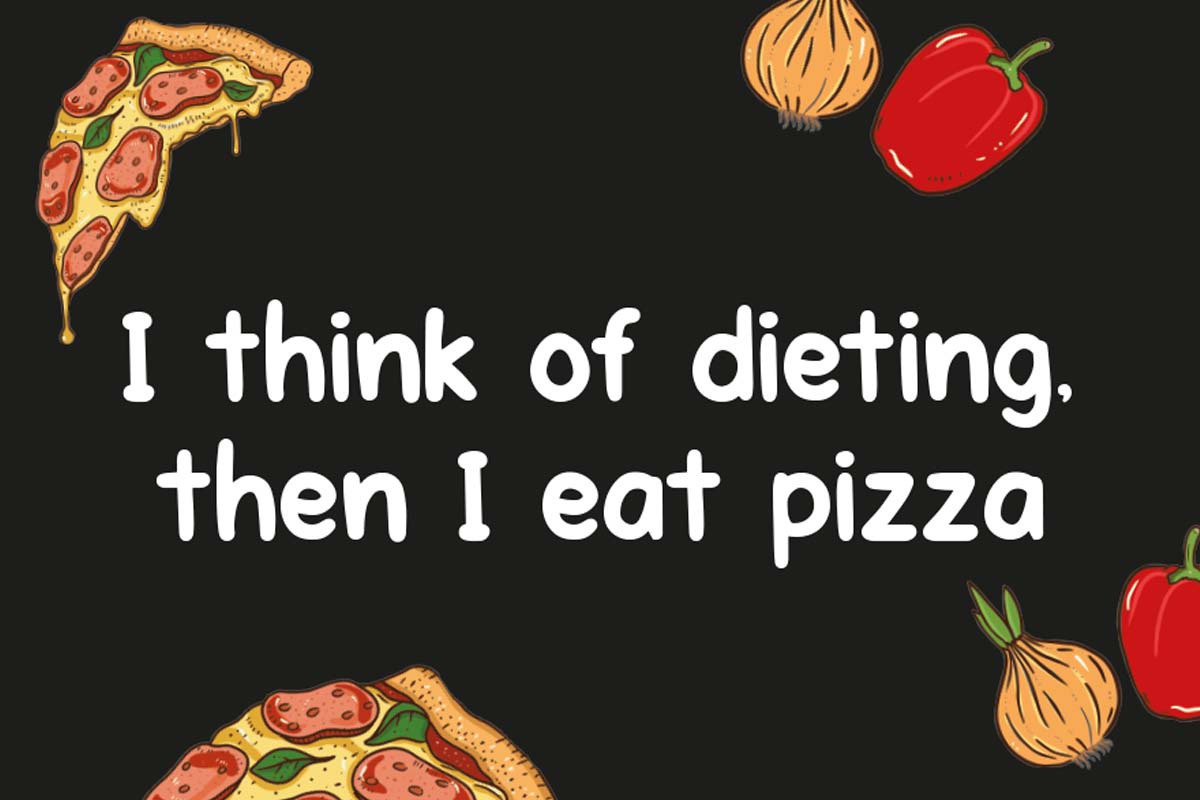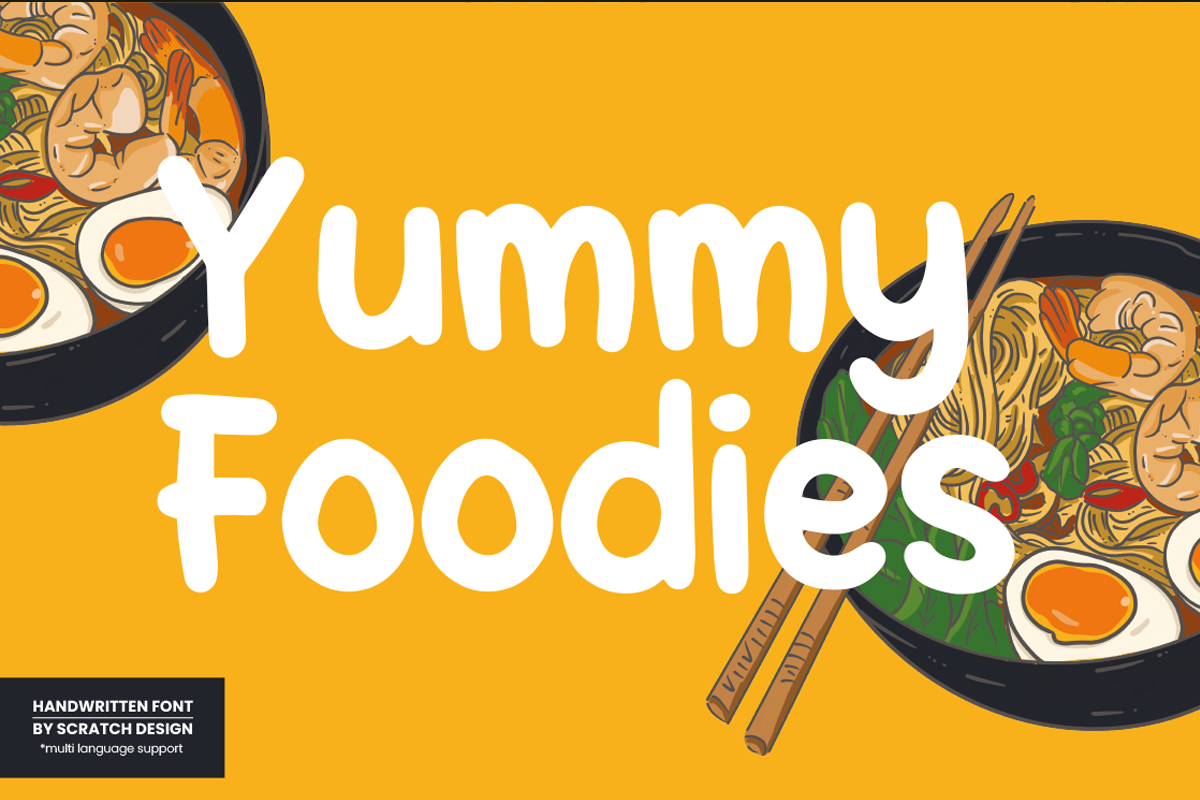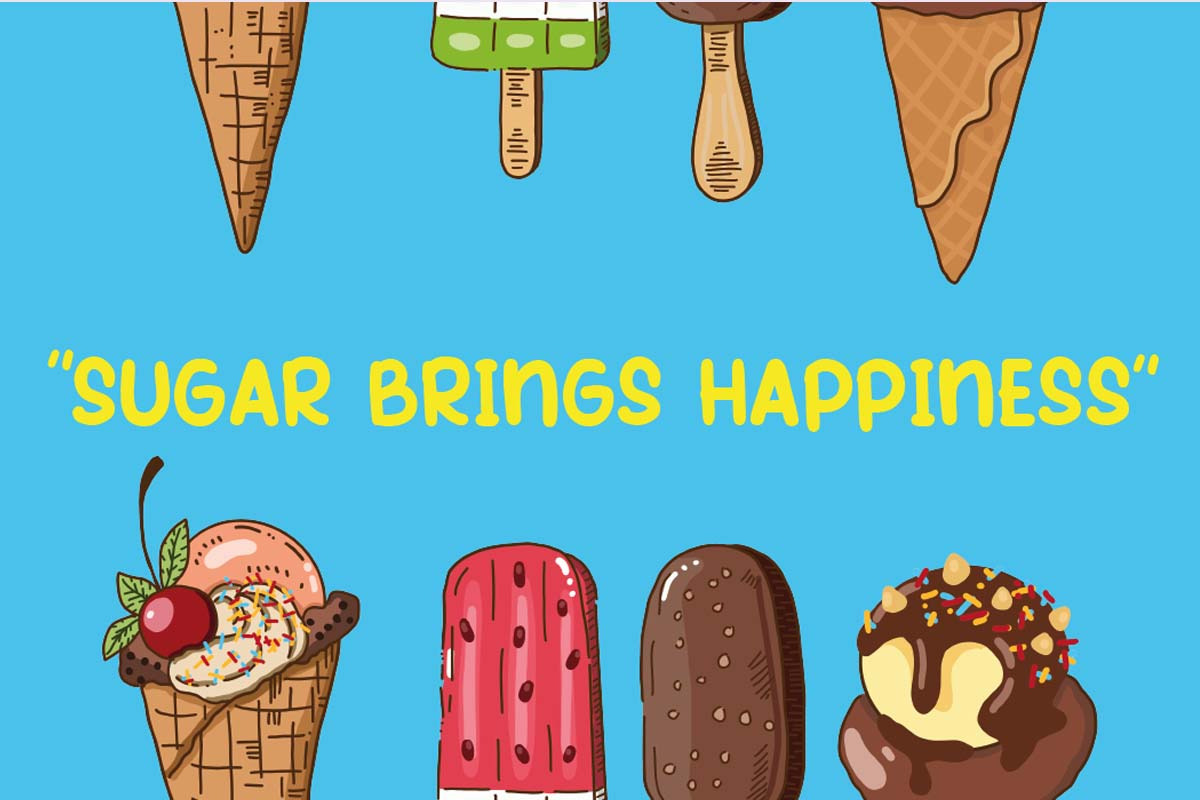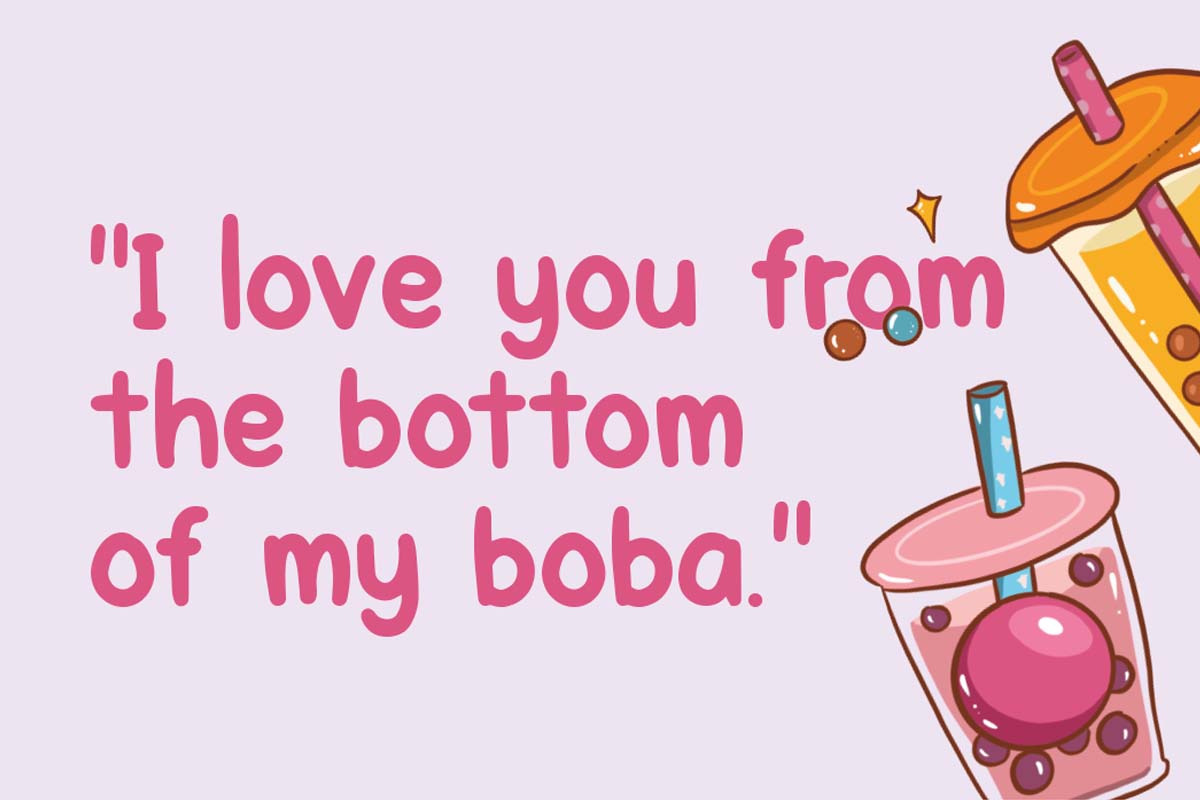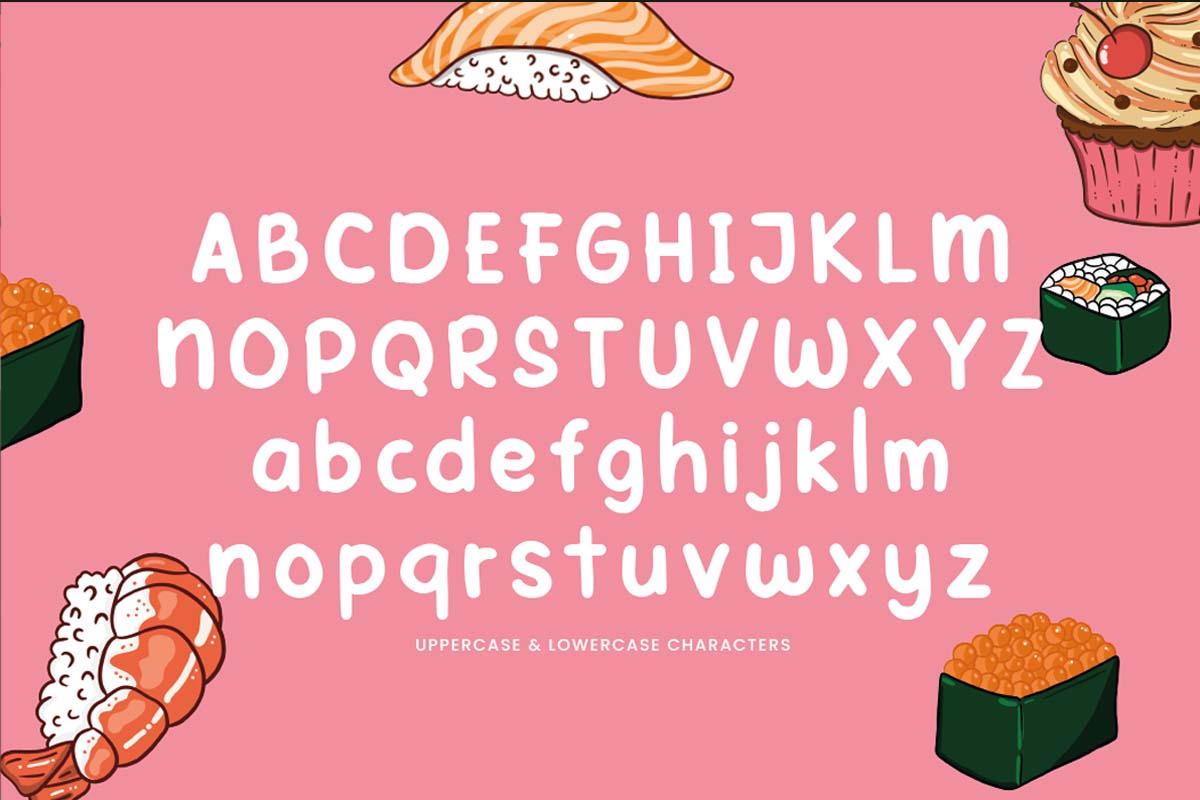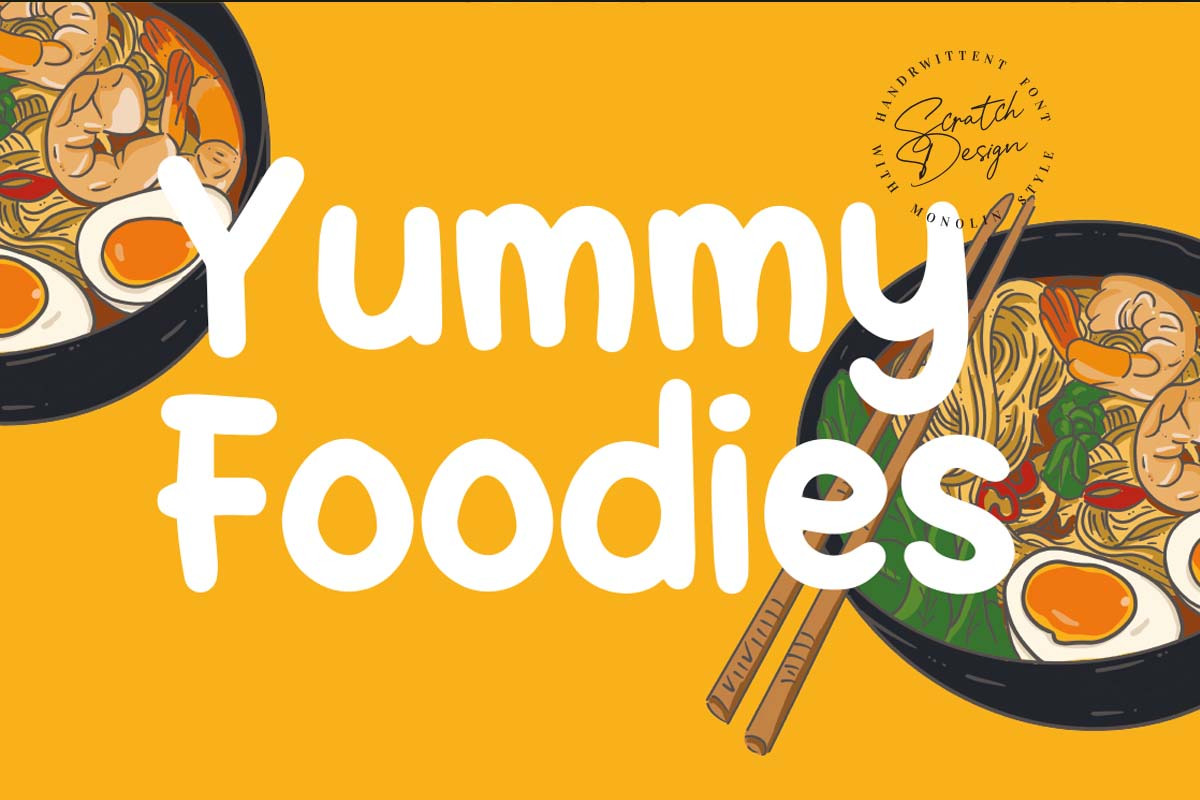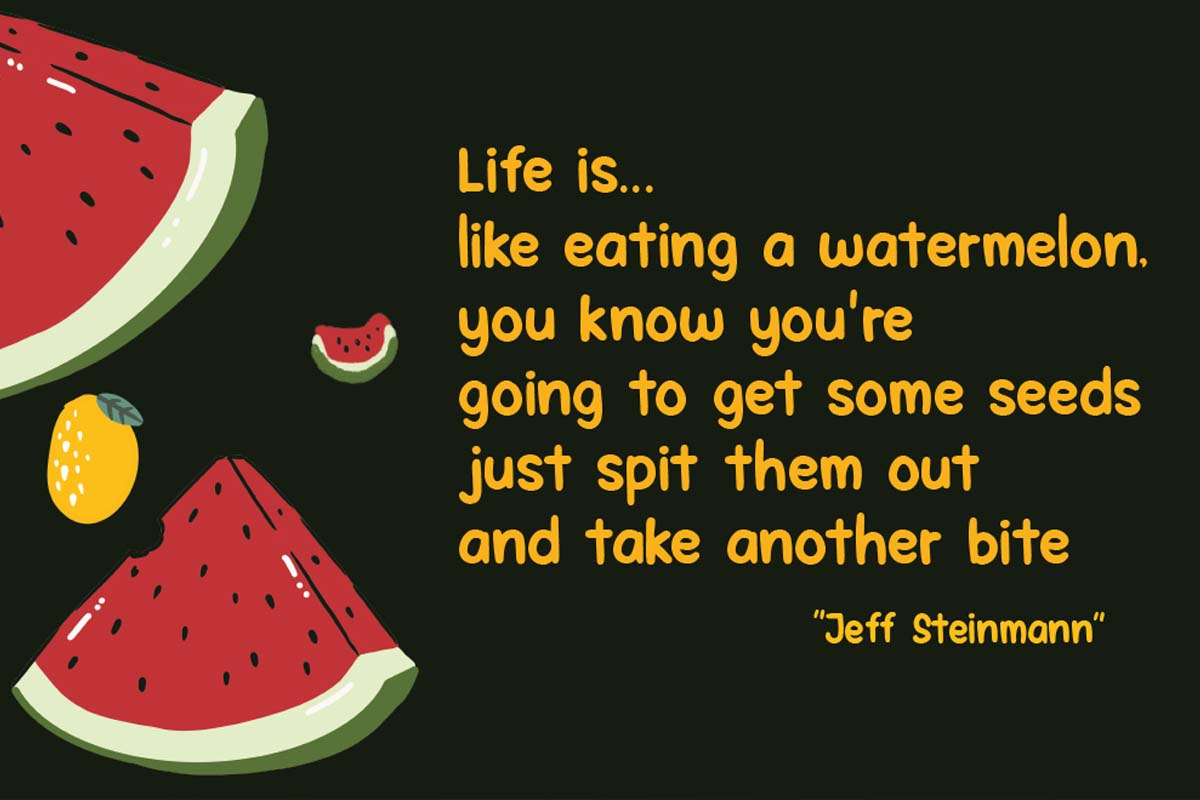
Yummy Foodies Font
Yummy Foodies is an authentic handwritten font, this font is complete with all punctuation and multi-languages support. Yummy foodies have a monoline shape and are very readable and the look also is cute and sweet, so this font will applicable to comic book text, poster, menu design, stationery design kit, presentation for education, youtube text, and title, and many more with casual concept design. Enjoy this font, and make some cool stuff!